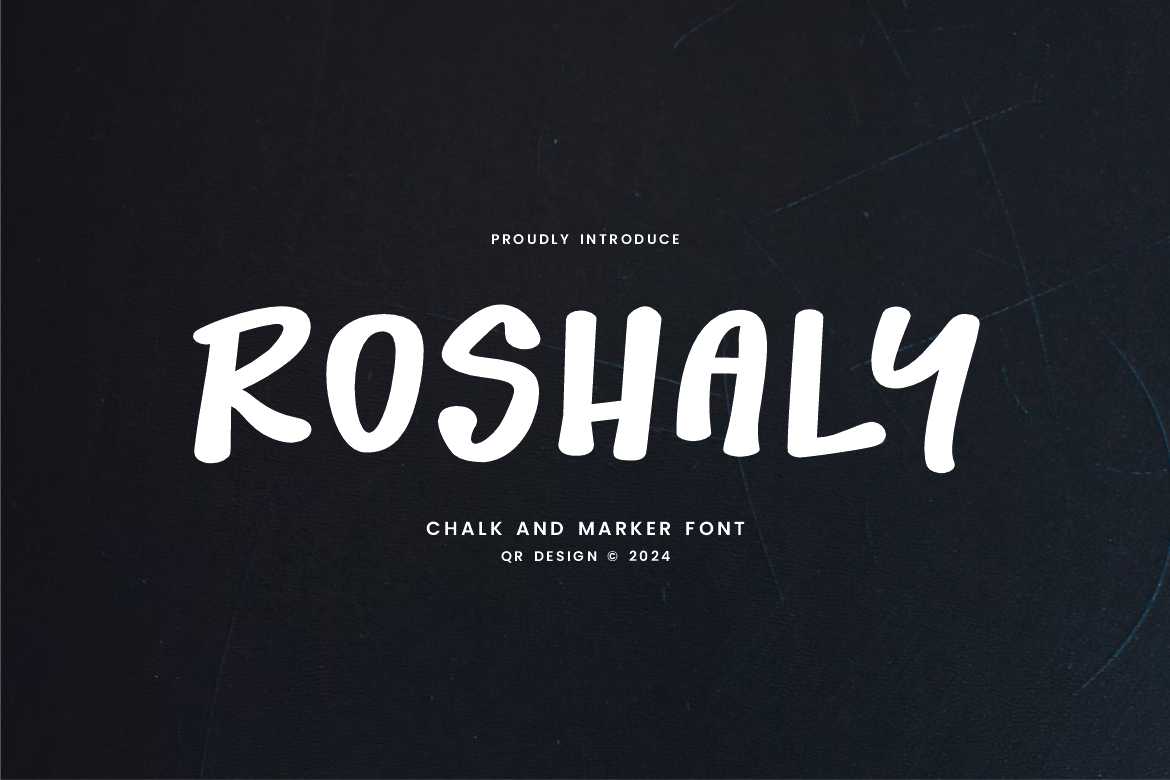
Roshaly - Chalk & Marker Font
Roshaly Font is a marker and authentic display font. The font is suitable for any branding project like poster, logo, sport, and many more. Outstanding in a wide range of contexts.